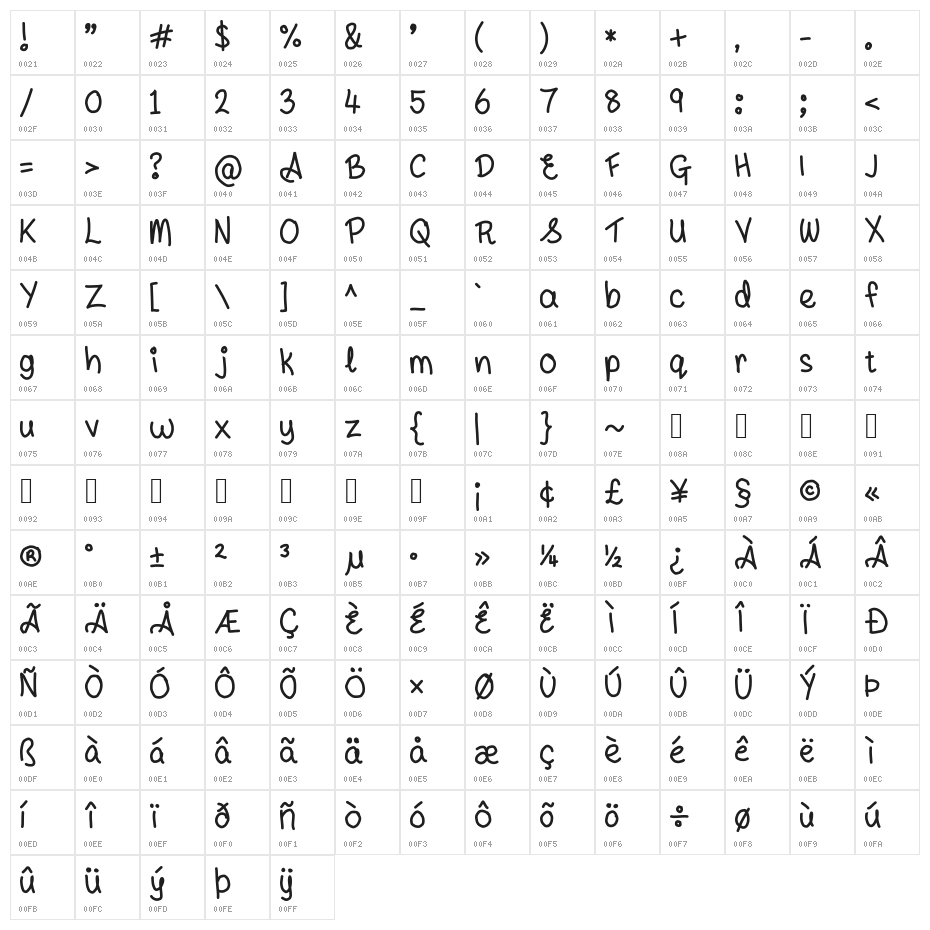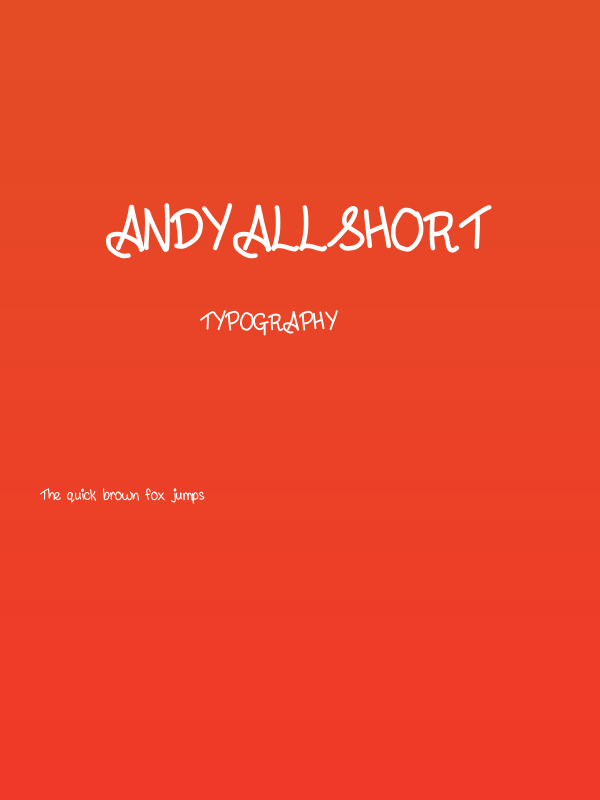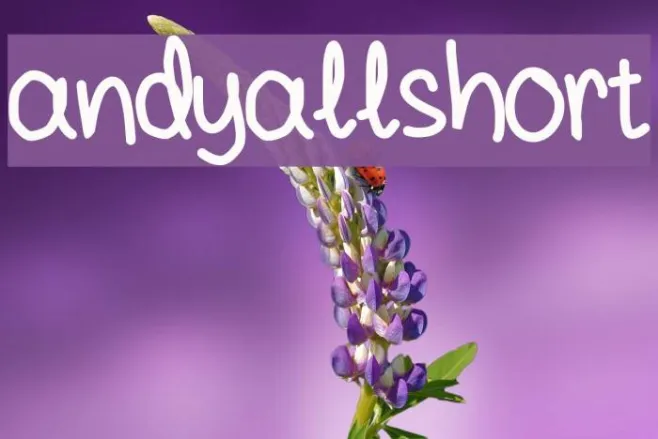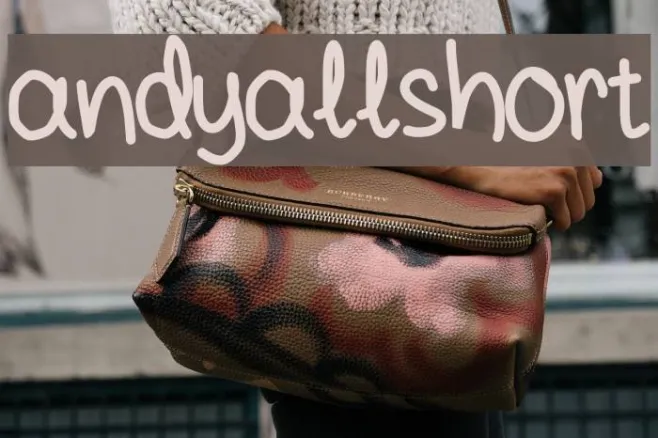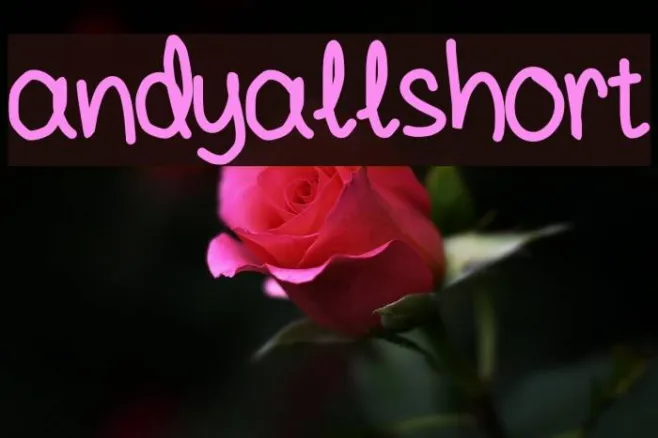
andyallshort Font
andyallshort Description
This playful and informal font features a handwritten style with a casual, friendly appearance. The letters are slightly slanted, giving a dynamic and lively feel. The strokes are consistent in width, providing a uniform look across all characters. The uppercase and lowercase letters maintain a cohesive style, with rounded edges and a smooth flow. Numbers and special characters are designed to match the overall aesthetic, ensuring versatility in various applications. This font exudes a sense of approachability and creativity, making it suitable for projects that require a personal touch.